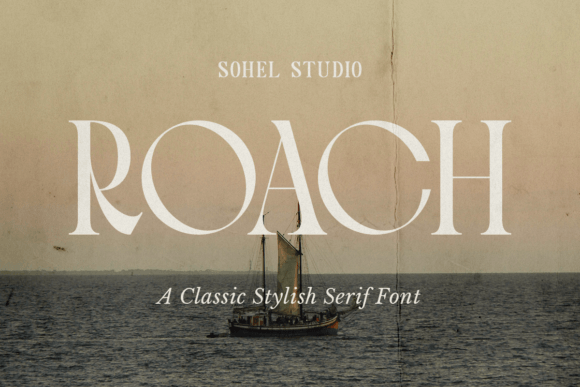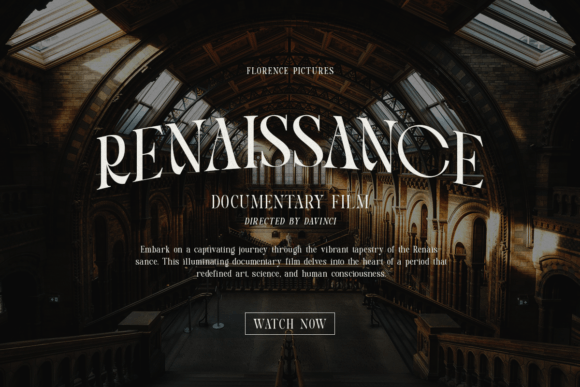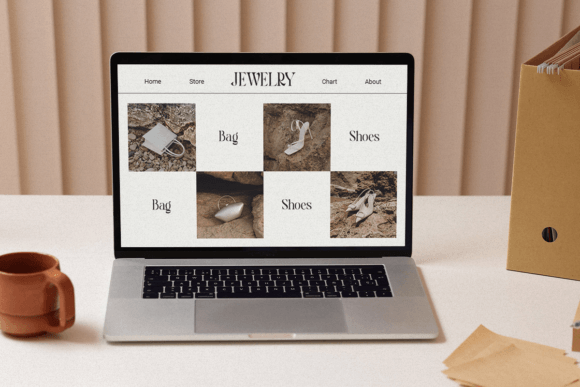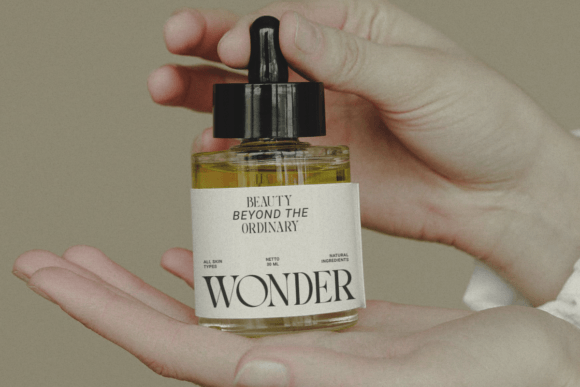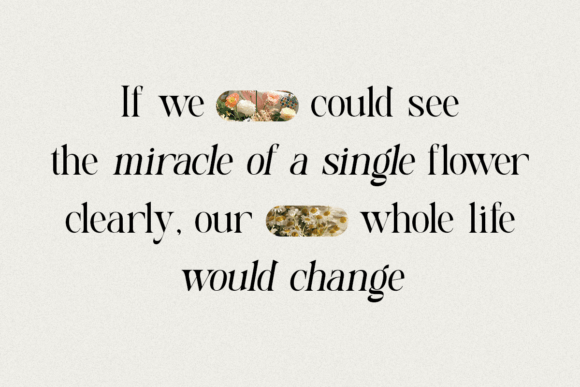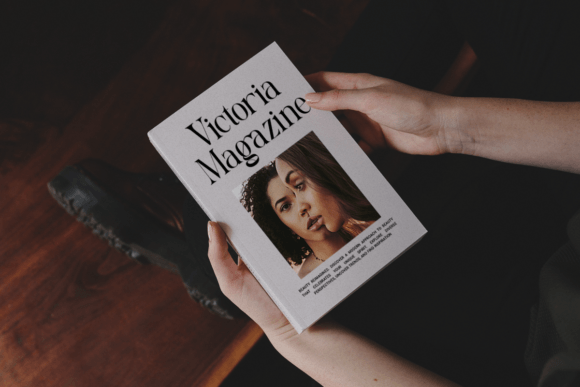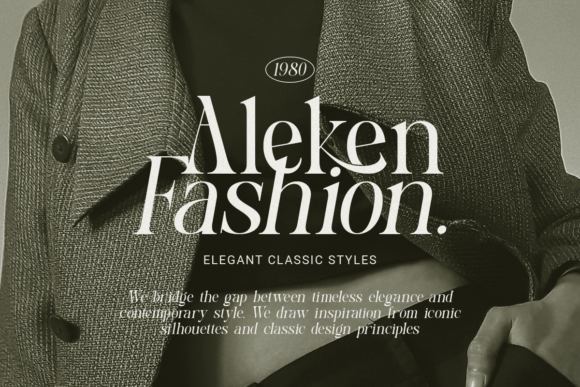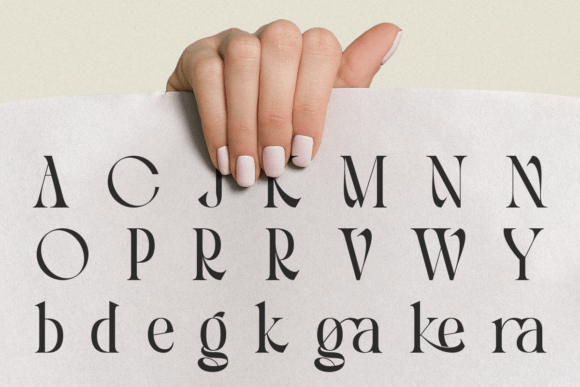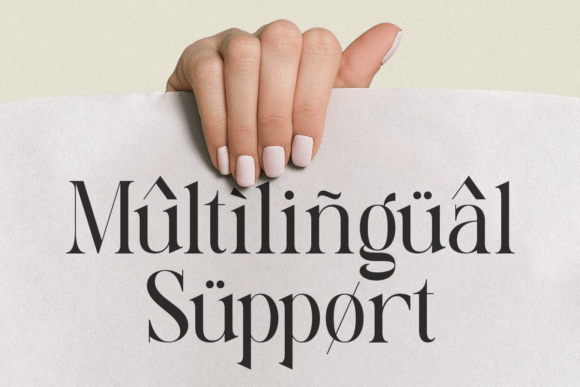
Roach Font
Introducing Roach, a classic stylish serif font designed to bring a timeless elegance to your projects. Roach combines traditional serif forms with a modern touch, making it perfect for a wide range of design applications.
Roach’s refined and graceful letterforms are inspired by the classic elegance of art deco, while incorporating subtle futuristic elements. This fusion creates a unique and sophisticated look, ideal for both corporate and creative designs.
Whether you’re designing for vintage-themed projects, sophisticated branding, or cinematic posters, Roach offers a distinctive and stylish presence. Its thin, premium quality strokes and exquisite details ensure that your work exudes elegance and class.
Perfect for nautical themes, historical projects, or any design that requires a touch of classic beauty, Roach stands out with its timeless appeal. The font’s modern minimalism and artful design make it versatile and suitable for both formal and casual contexts.
Discover the enduring charm and stylish sophistication of Roach, a serif font that embodies the grace and timeless beauty of classic typography.